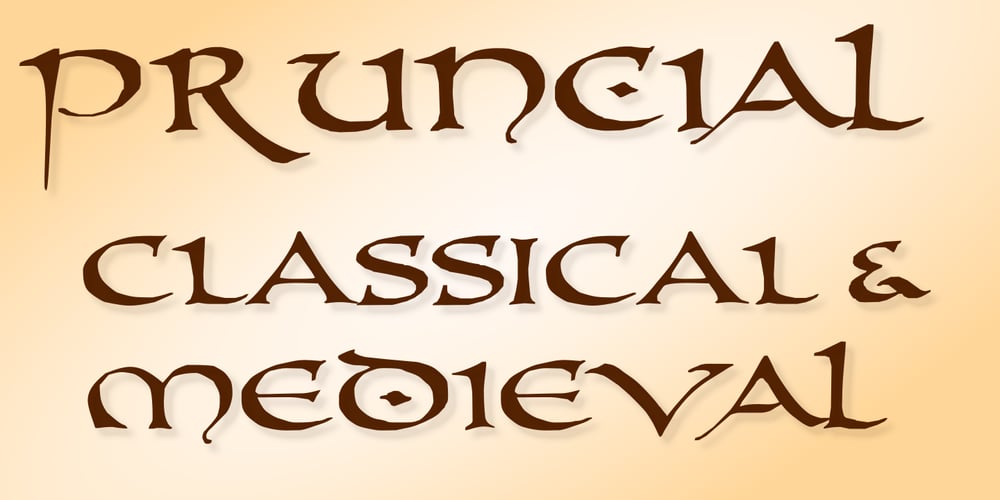
PR-Uncial Font Family was designed by Peter Rempel and published by PR Fonts. PR-Uncial contains 1 styles and family package options. This is our first font, based on Peter’s own personal way of writing uncials, The rounded letters of the fourth to eighth centuries. The characters in the caps position are more closely related to the classical Roman forms, and the lowercase position has letters that are the more rounded, medieval forms, at the same size, so they can be freely mixed, for a hand lettered appearance. This typeface is currently used for the titles in the TNT Television show “the Librarians”. It was originally designed in 1998, and is now available in Open Type Format.